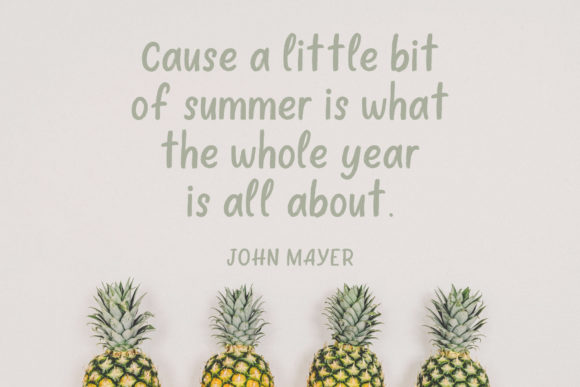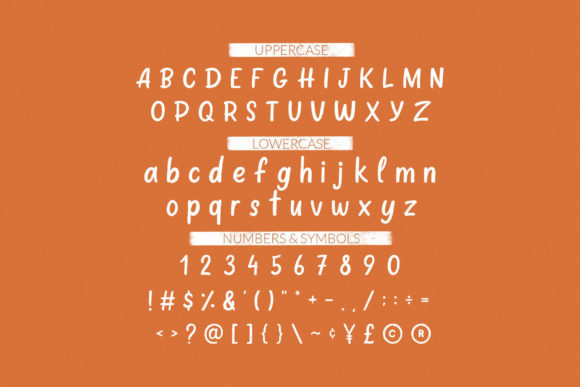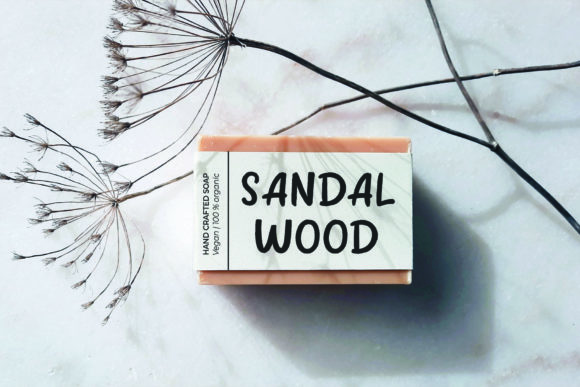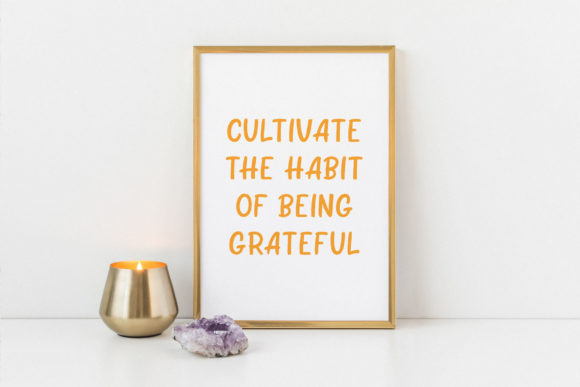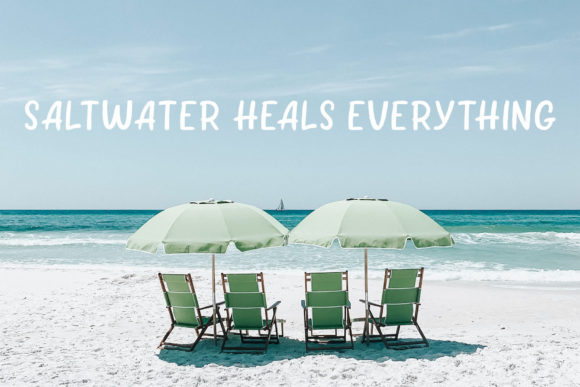
Introduction to Golden Beach Font
Golden Beach is a cool, paint brushed display font.
It has a modern yet whimsical style and it will undoubtedly immerse your designs into a magical world .